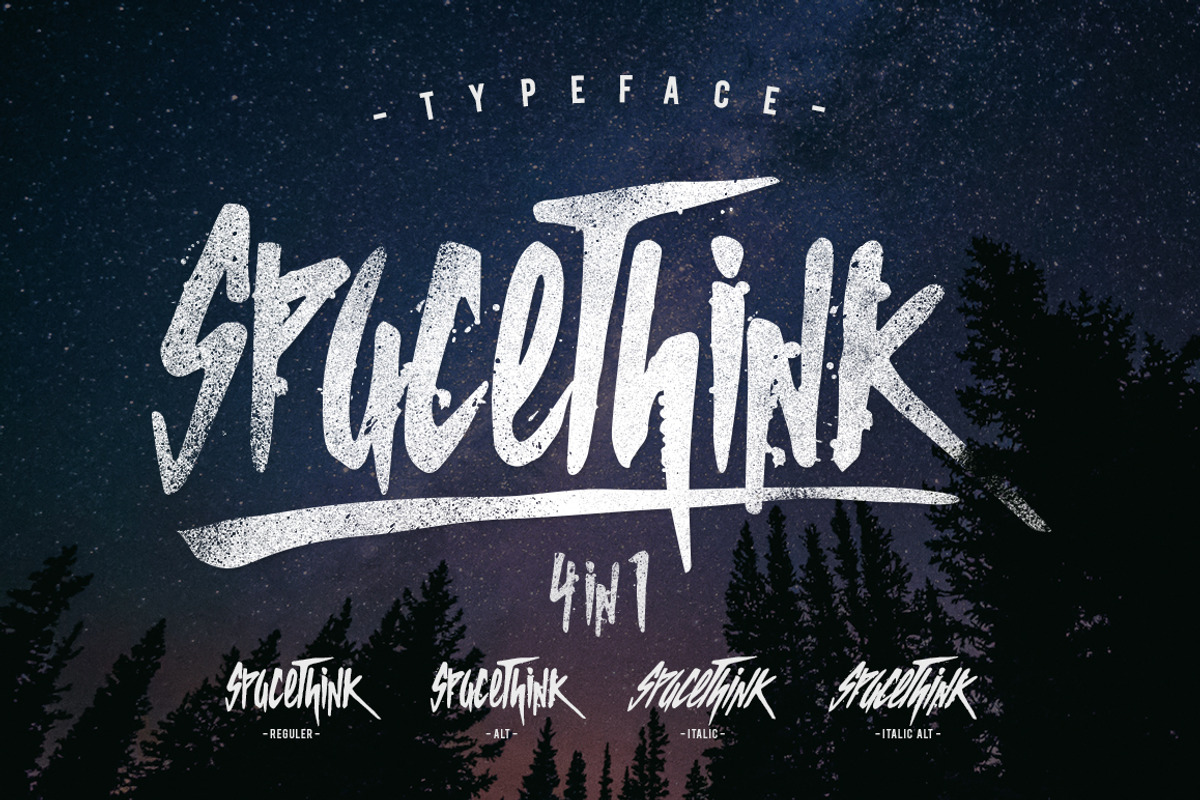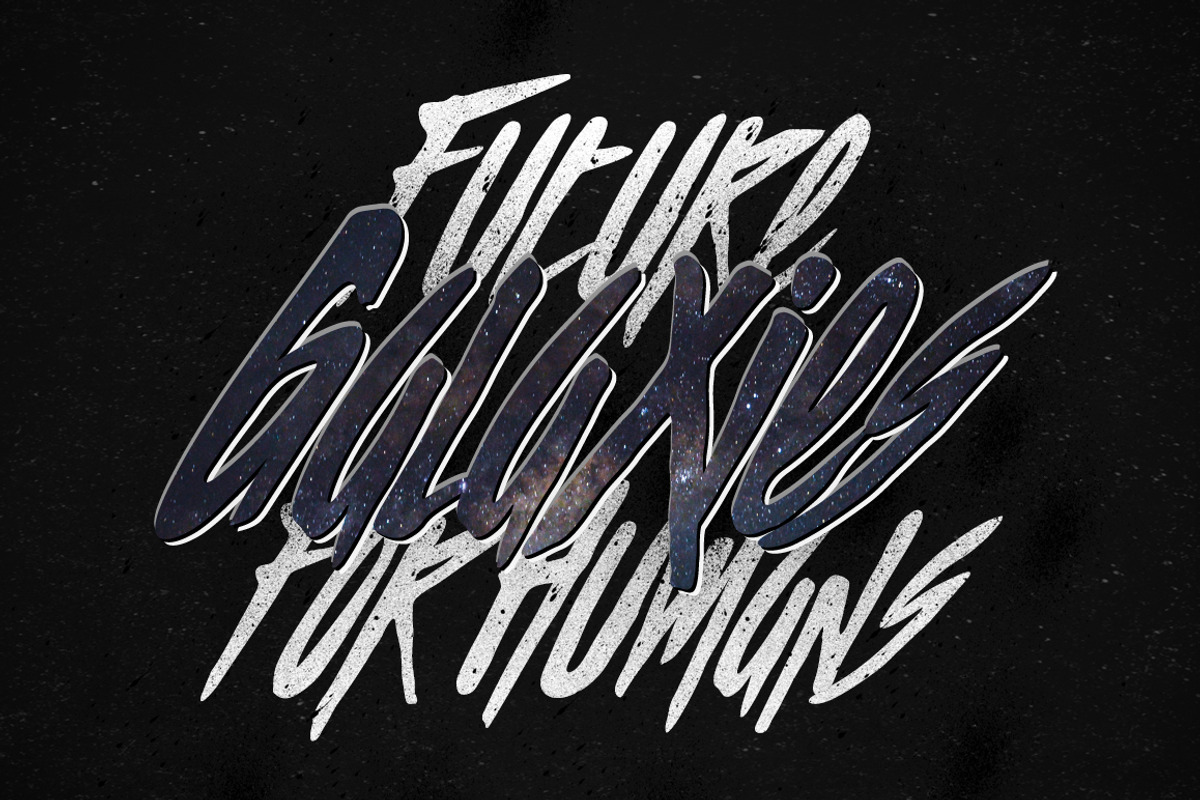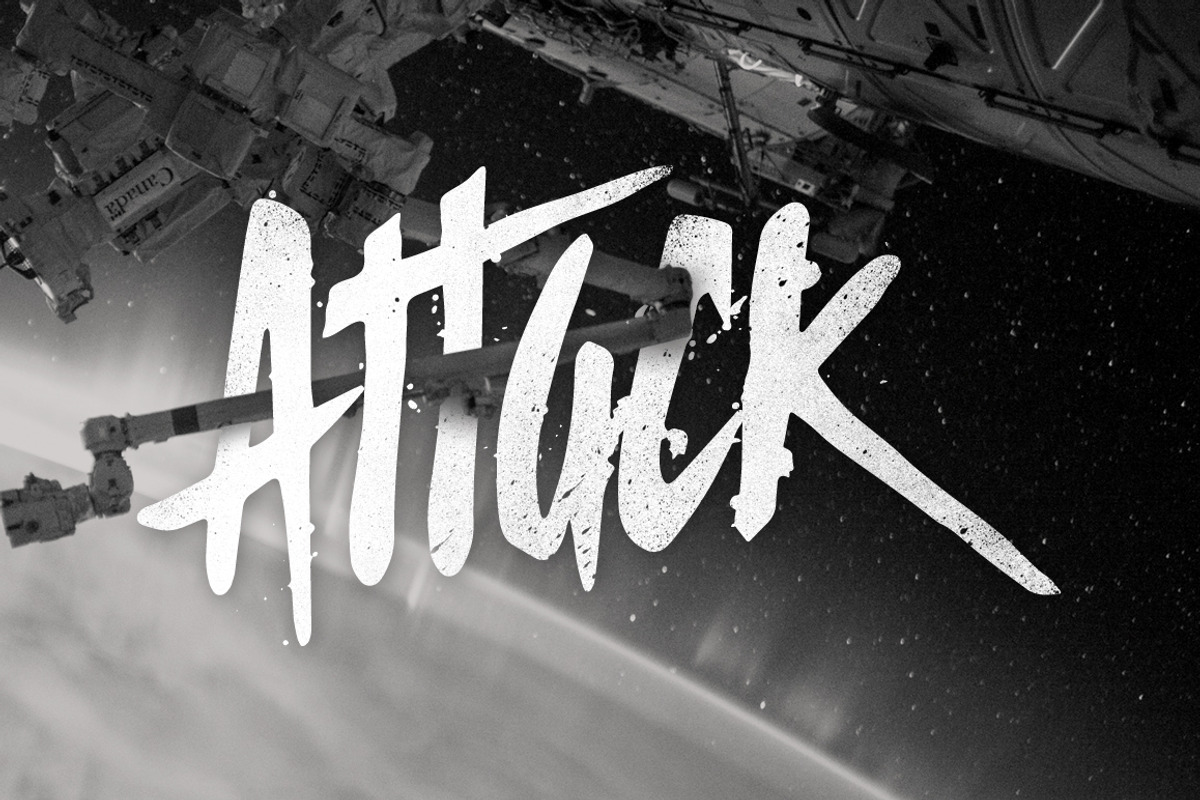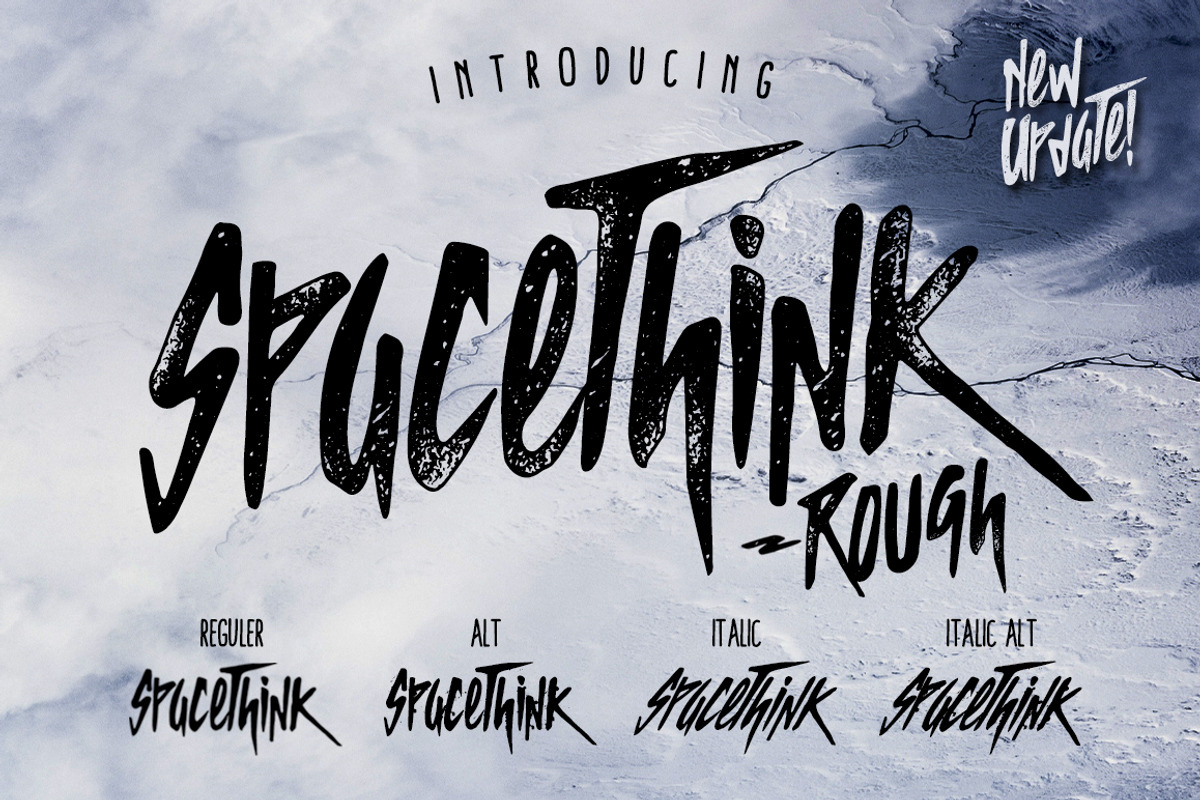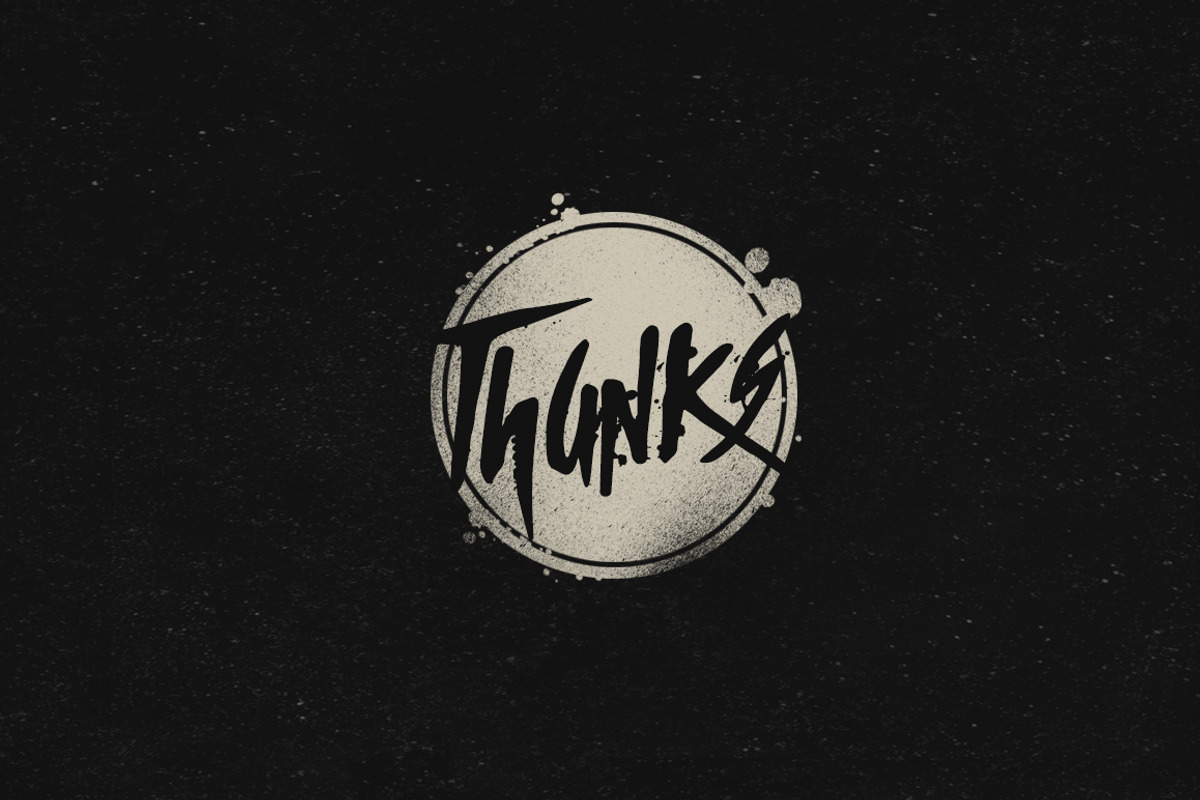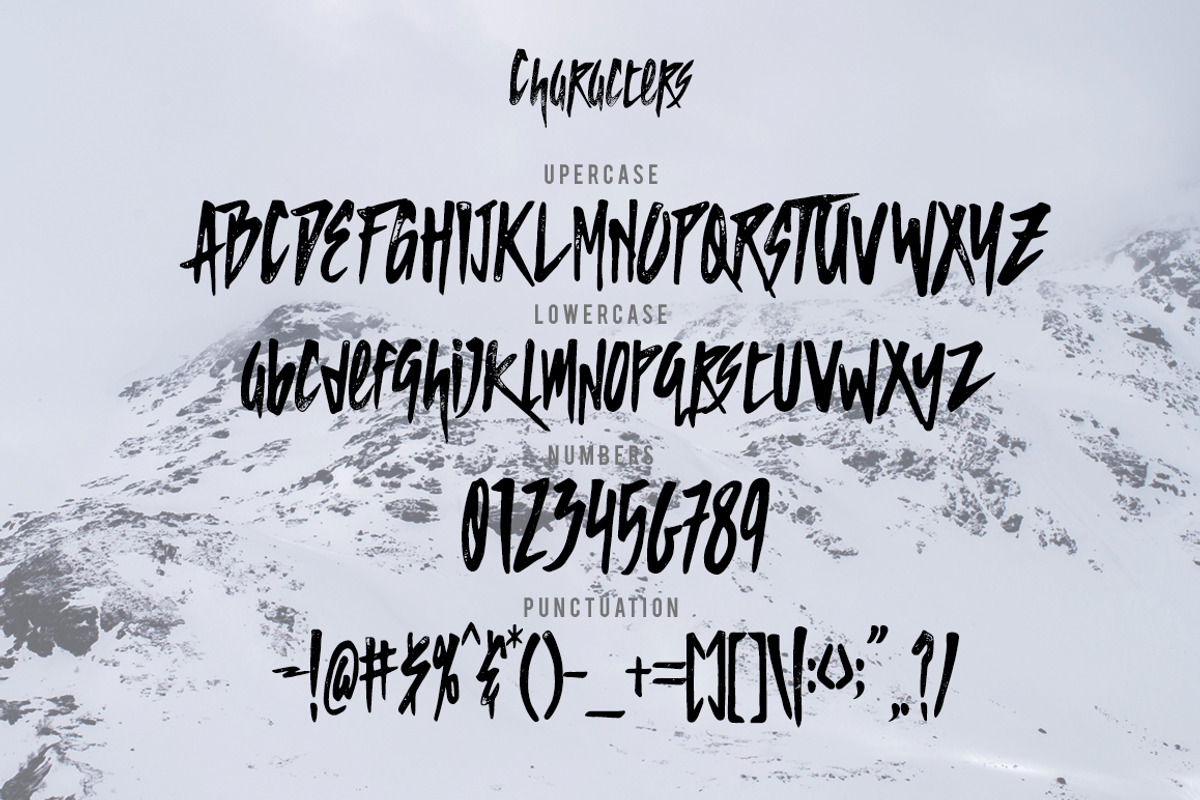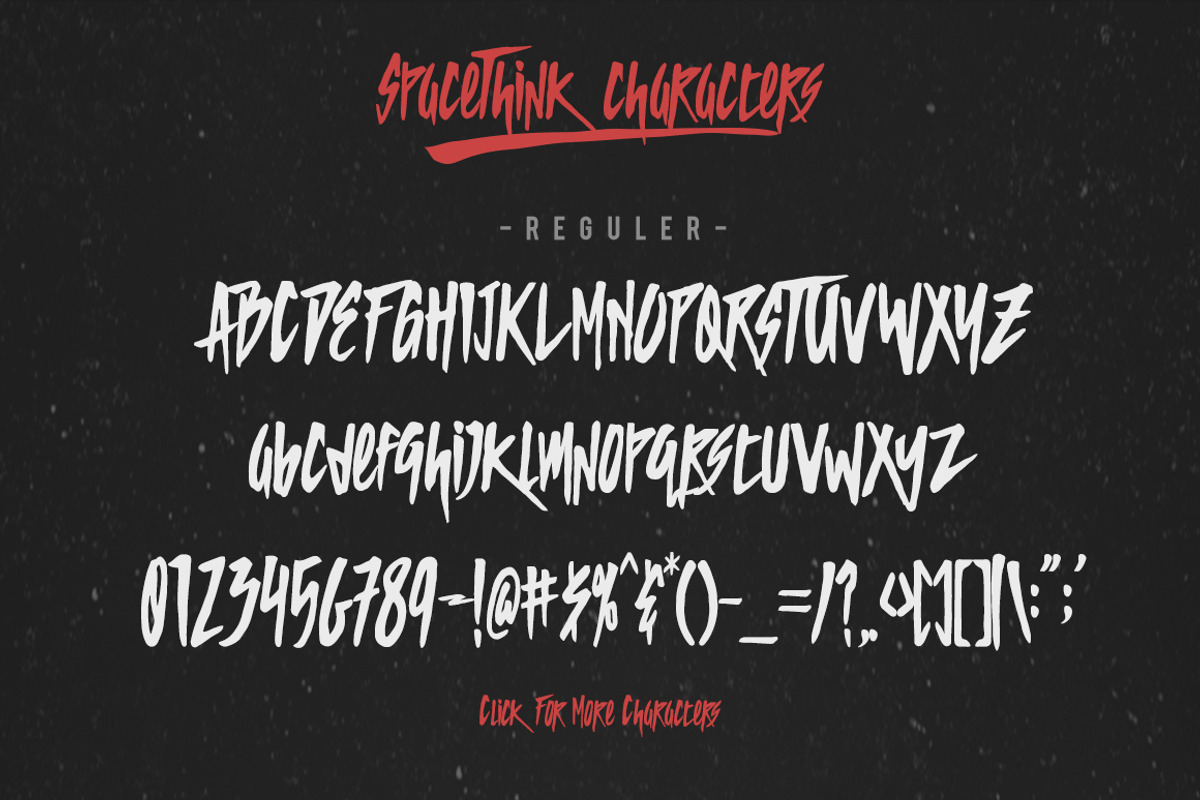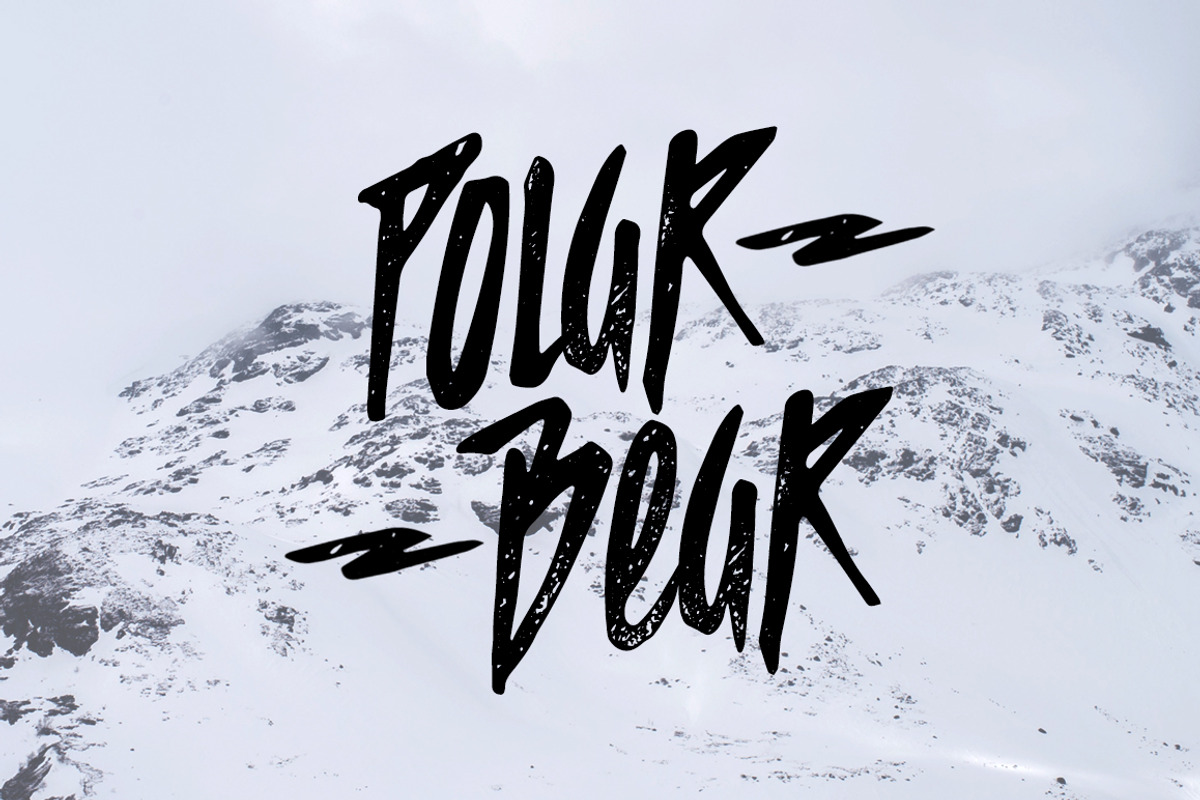
- NEW UPDATE - SPACETHINK ROUGH
• SPACETHINK Typeface Family.
Have 5 types of style options that can make it easier to convey the message in your design.
Use for awesome display, labeling, clothing, movie sceen, party poster, movie title, gigs, album covers, logos, and much more.